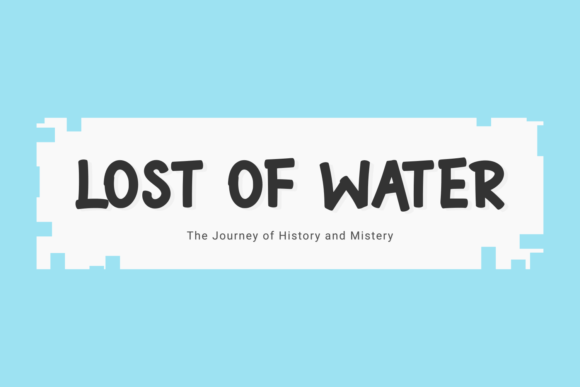
My Story Heart Font
My Story Heart Font is a simple and fun display font. Add it to your logos, labels, branding, websites, quotes, and more, and it will boost your designs and make them a true standout!